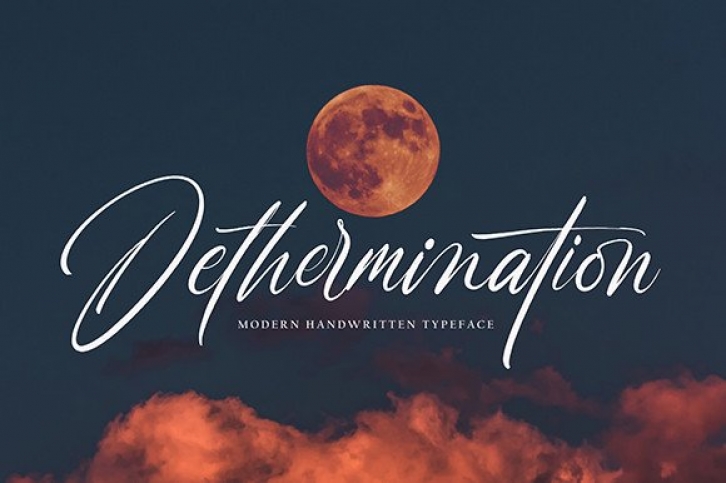
Dethermination is a sleek and exquisite script font, perfect for many projecst that need elegant typography. Try it on quotes, logos, blog headers, posters, banding, letters, invitation, stationery, etc.